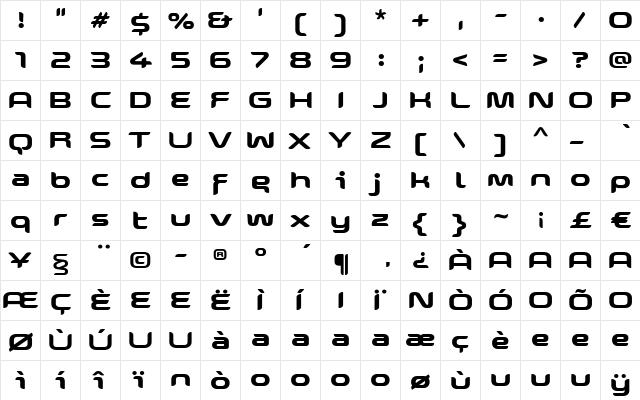
Snowslider Bold
Design Context for Snowslider Typeface
Snowslider offers clean, dependable letterforms without strong stylistic allegiance, making it a practical choice for designers who need flexibility. The heavy weight commands attention and anchors typographic hierarchies.